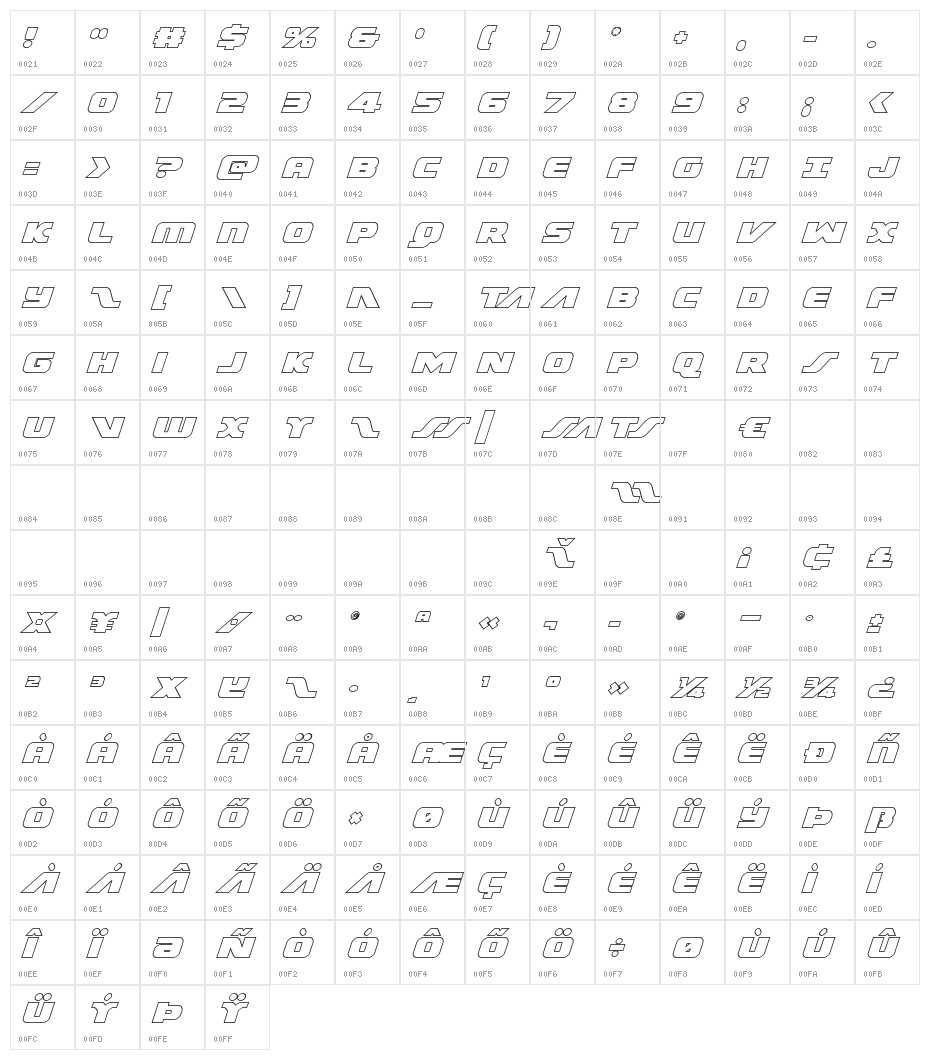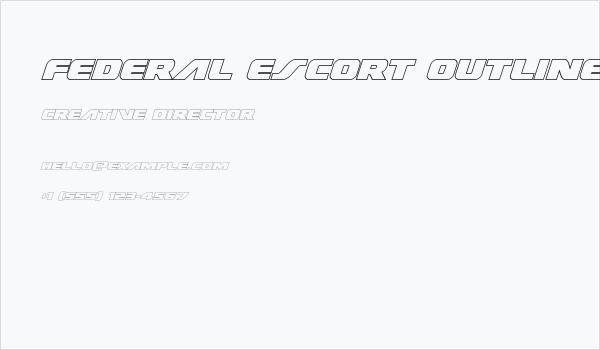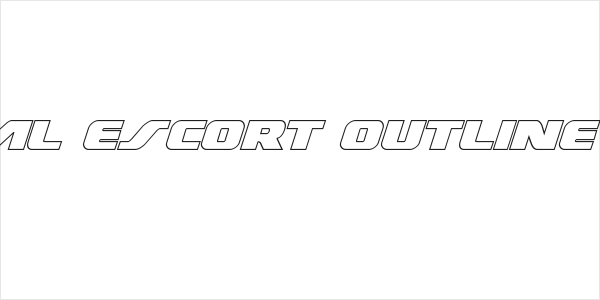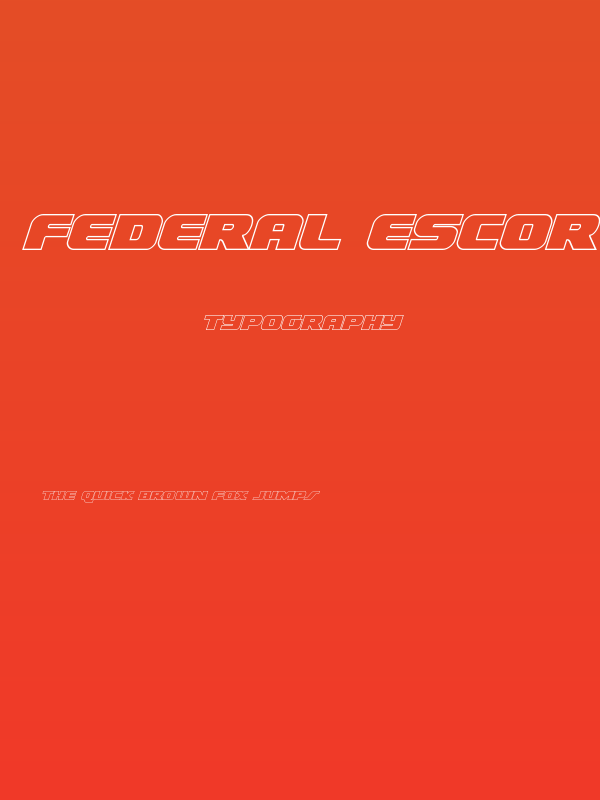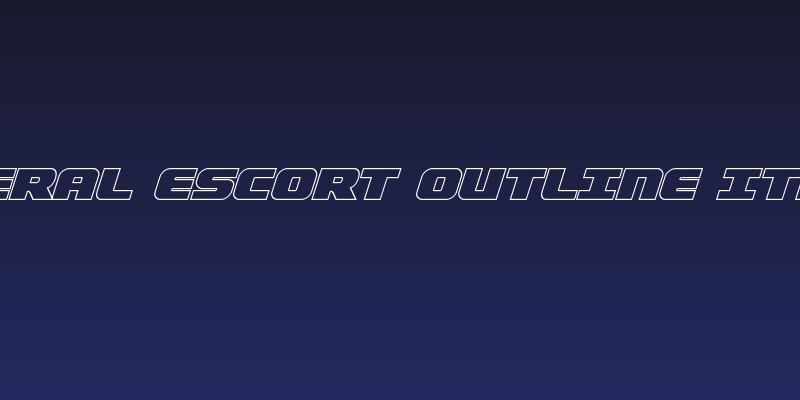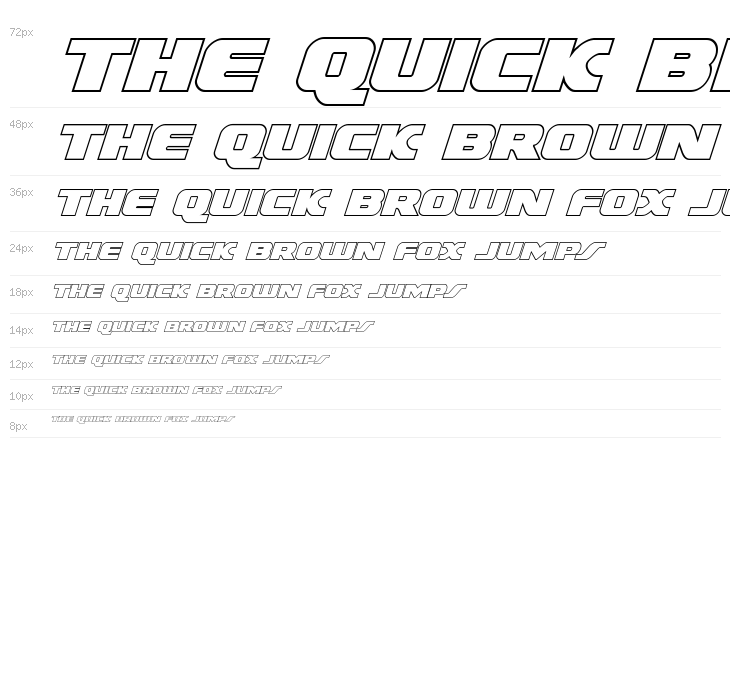
Federal Escort Outline Italic Font
Federal Escort Outline Italic Description
This font features a bold, futuristic design with an outline style that gives it a unique, dimensional appearance. The italic slant adds a dynamic and forward-moving feel, making it ideal for projects that require a modern and edgy look. The characters are wide and spacious, with a consistent stroke width that maintains clarity and readability. The uppercase and lowercase letters are distinct, with angular cuts and sharp edges that enhance its contemporary aesthetic. The numerals and special characters are equally bold and match the overall style, ensuring a cohesive look across all text elements.
| Proposed Projects | Ideal for branding, posters, video game graphics, and sci-fi themed projects. |